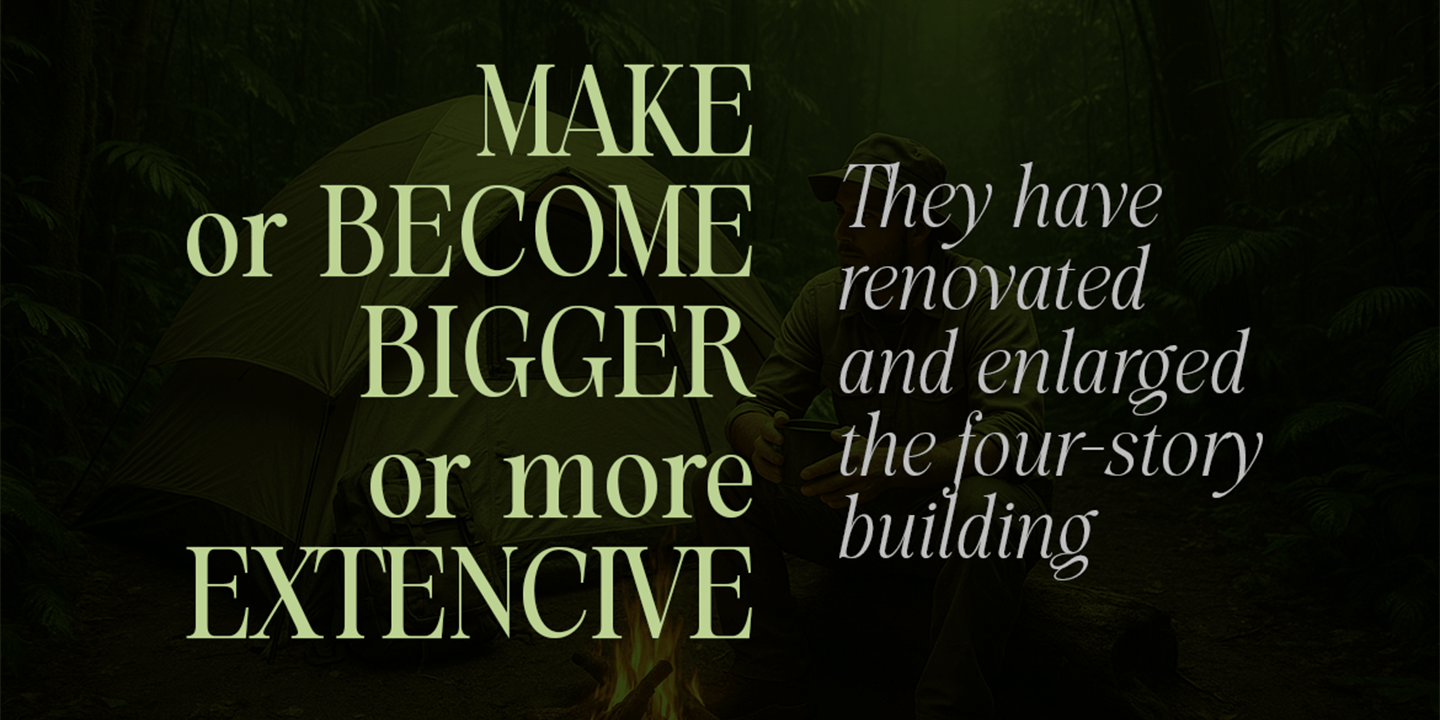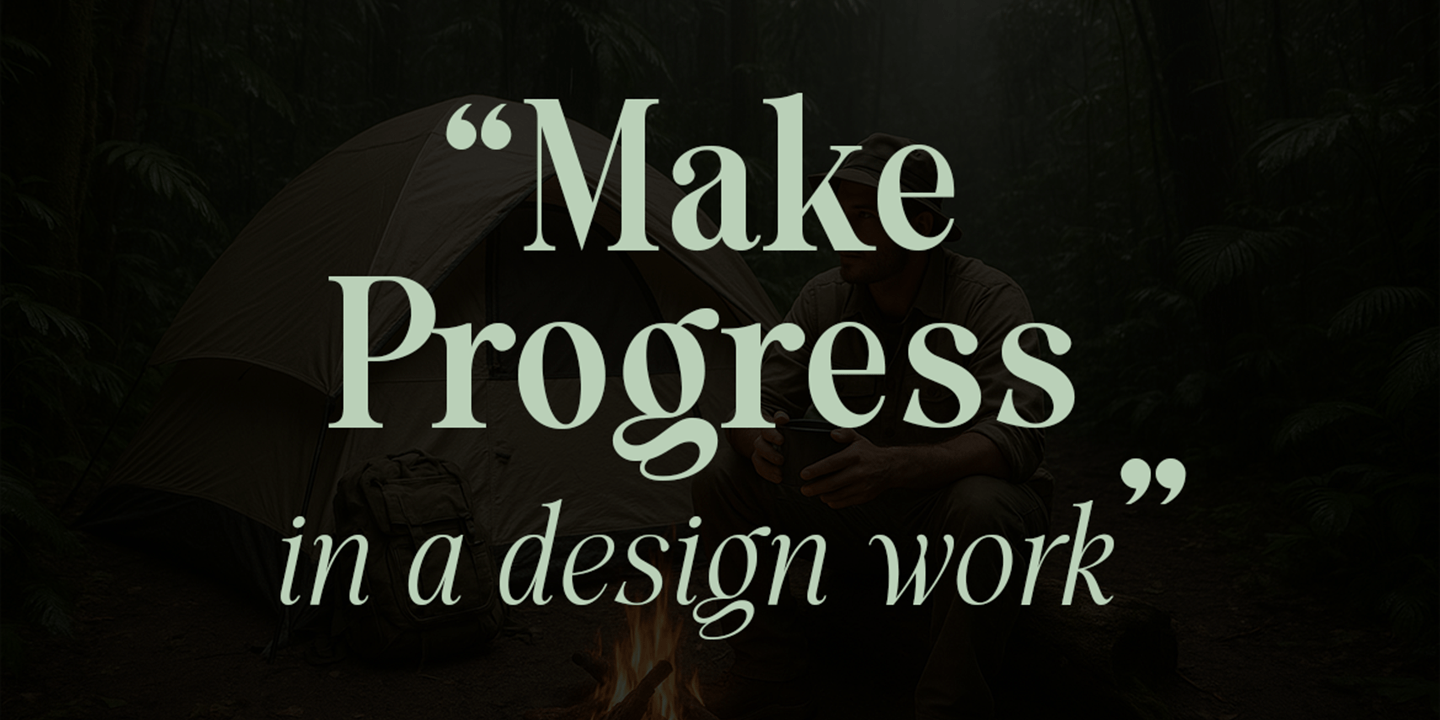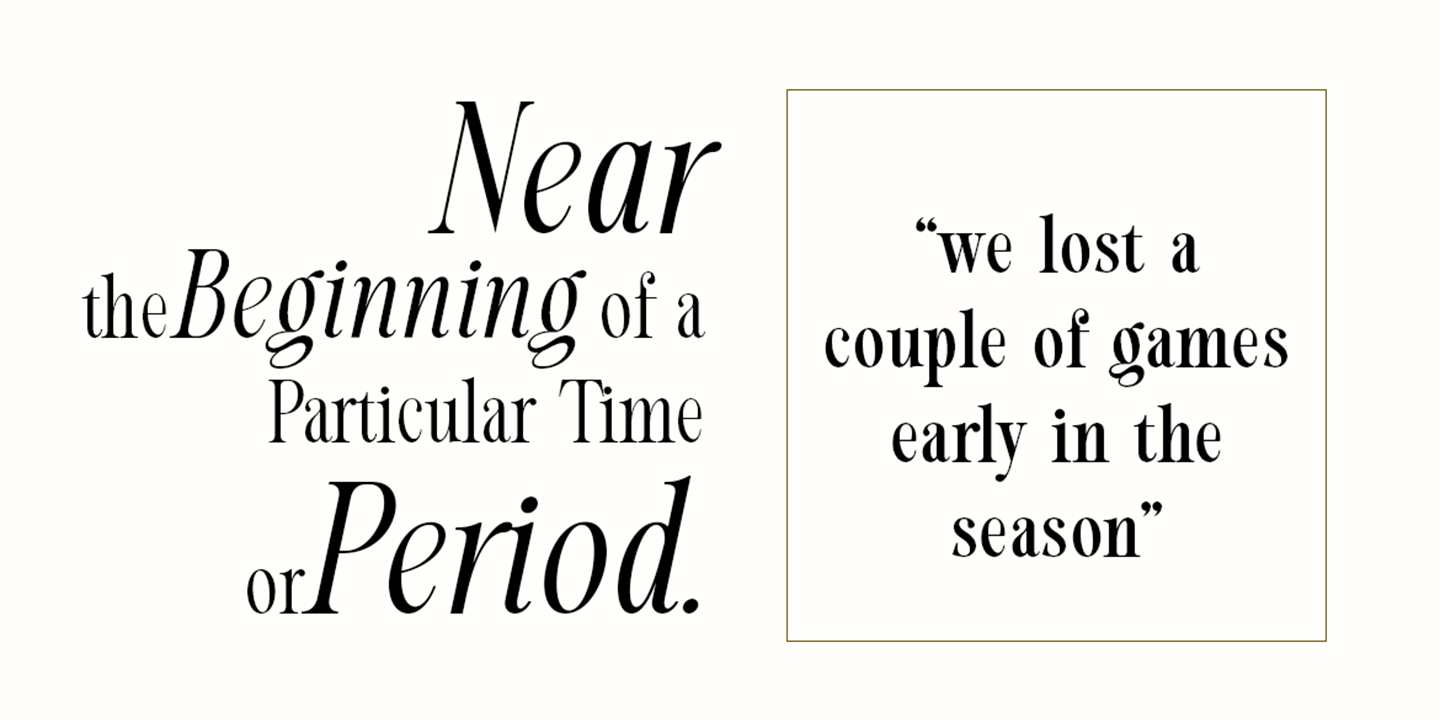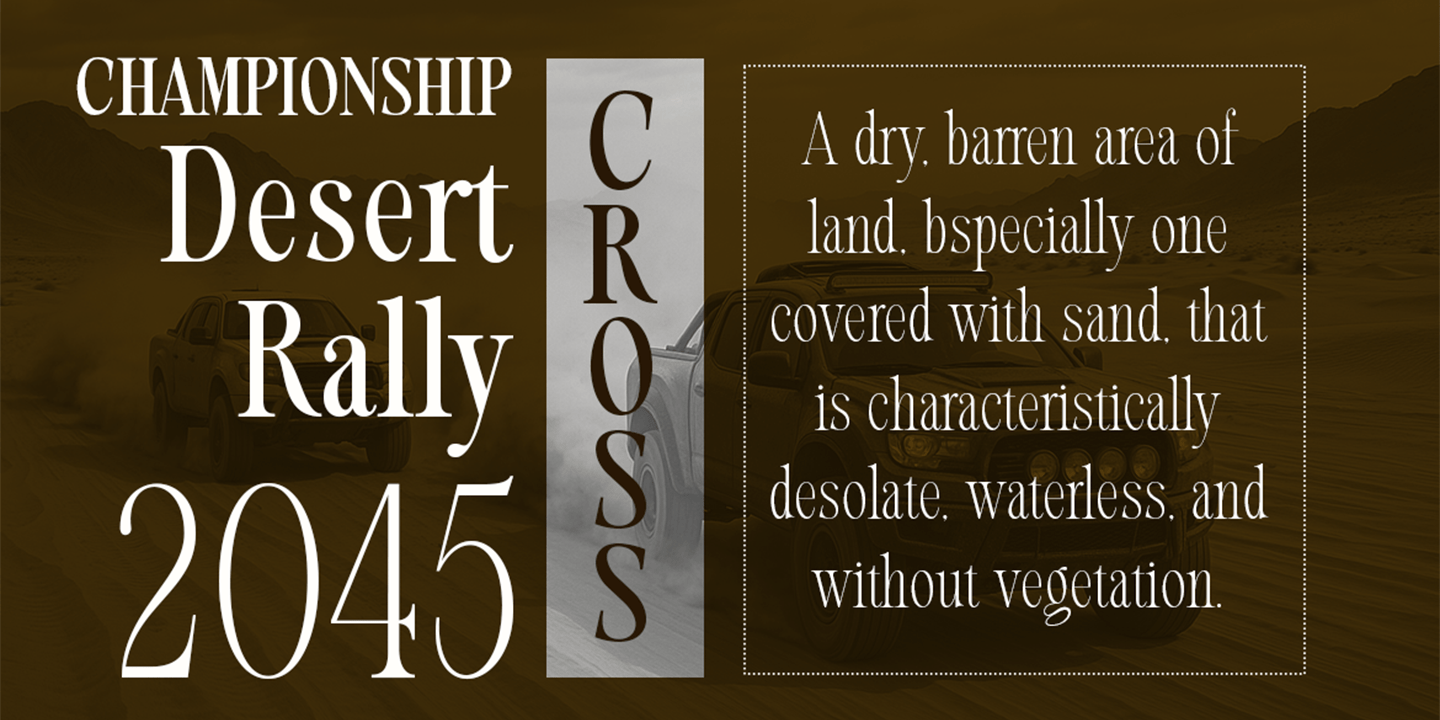
Evolve Early Normal
Evolve Early Normal — Serif Font Family
Evolve Early Normal is a refined serif typeface family designed for timeless editorial elegance and modern brand expression. With 24 styles—from Thin to Extra Black, each paired with a carefully crafted italic—this family provides the perfect balance of tradition, clarity, and contemporary sophistication.
Built on classic serif proportions with smooth curves and graceful contrast, Evolve Early Normal delivers exceptional readability for long-form text, while its heavier weights bring dramatic presence to headlines and identity systems. Whether used for books, magazines, luxury branding, or digital publishing, this family adapts effortlessly to any design environment.
Styles Included: 12 Uprights (Thin → Extra Black) 12 Italics (Thin Italic → Extra Black Italic)
A versatile serif solution for designers who need a complete, polished, and professional typographic toolkit.